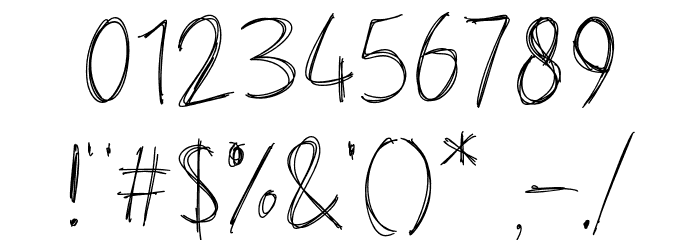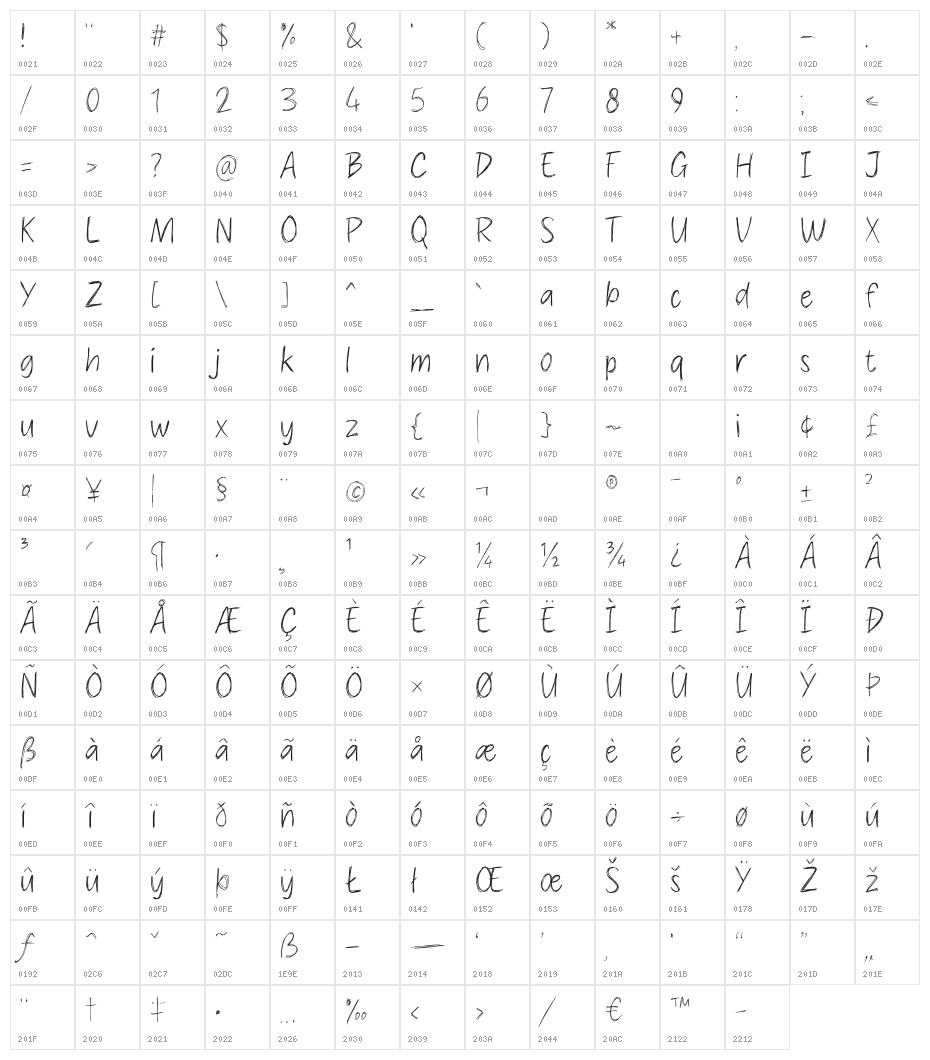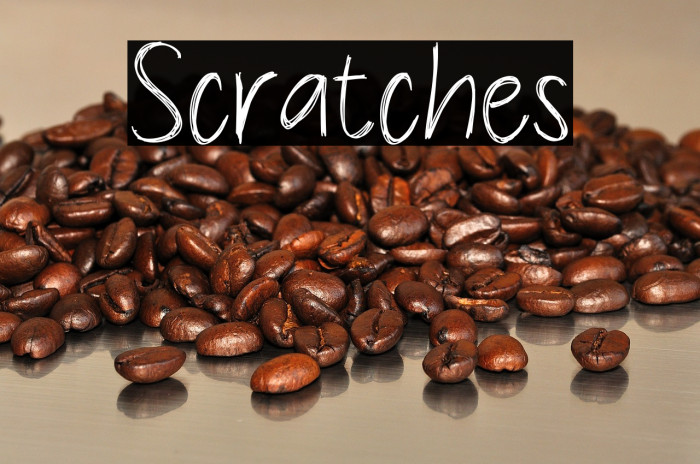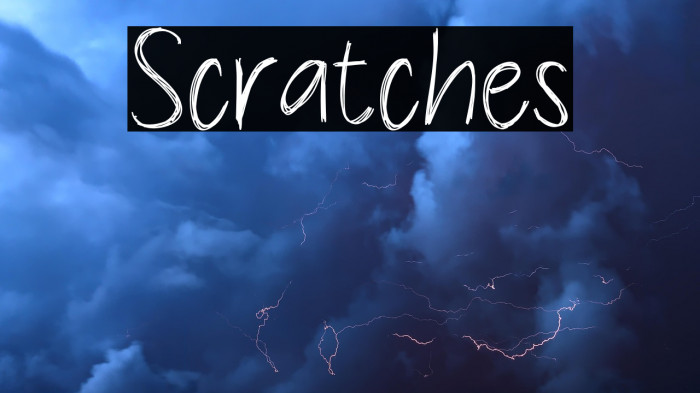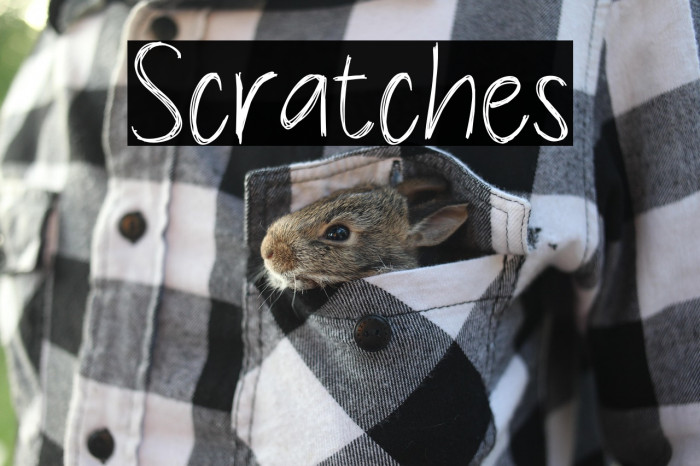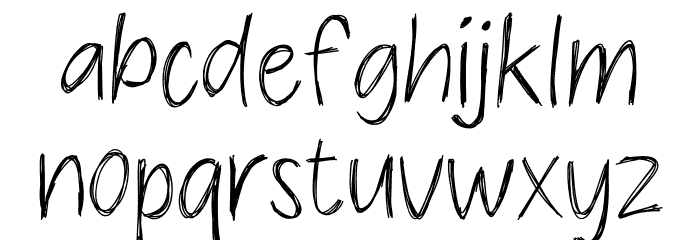
Scratches Font
Scratches Description
This font exhibits a raw, hand-drawn aesthetic with a sketch-like quality. The characters are uneven and slightly irregular, giving them a dynamic and energetic feel. The strokes are varied, with some lines appearing thicker and others thinner, creating a sense of movement and spontaneity. The uppercase and lowercase letters maintain a consistent style, with a playful and informal appearance. Numbers and special characters follow the same design principles, ensuring a cohesive look across all elements. This font is perfect for projects that require a personal touch or a creative, artistic vibe.
| Proposed Projects | Ideal for artistic projects, personal branding, creative posters, and informal invitations. |